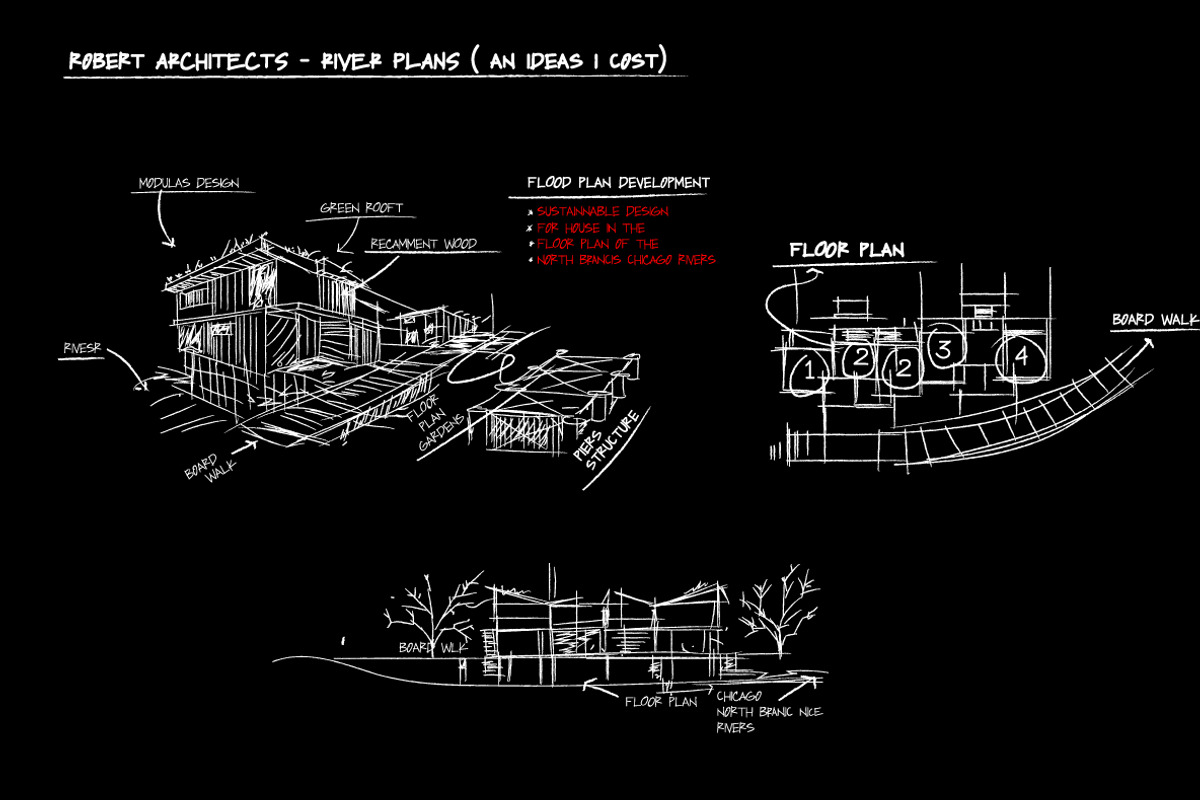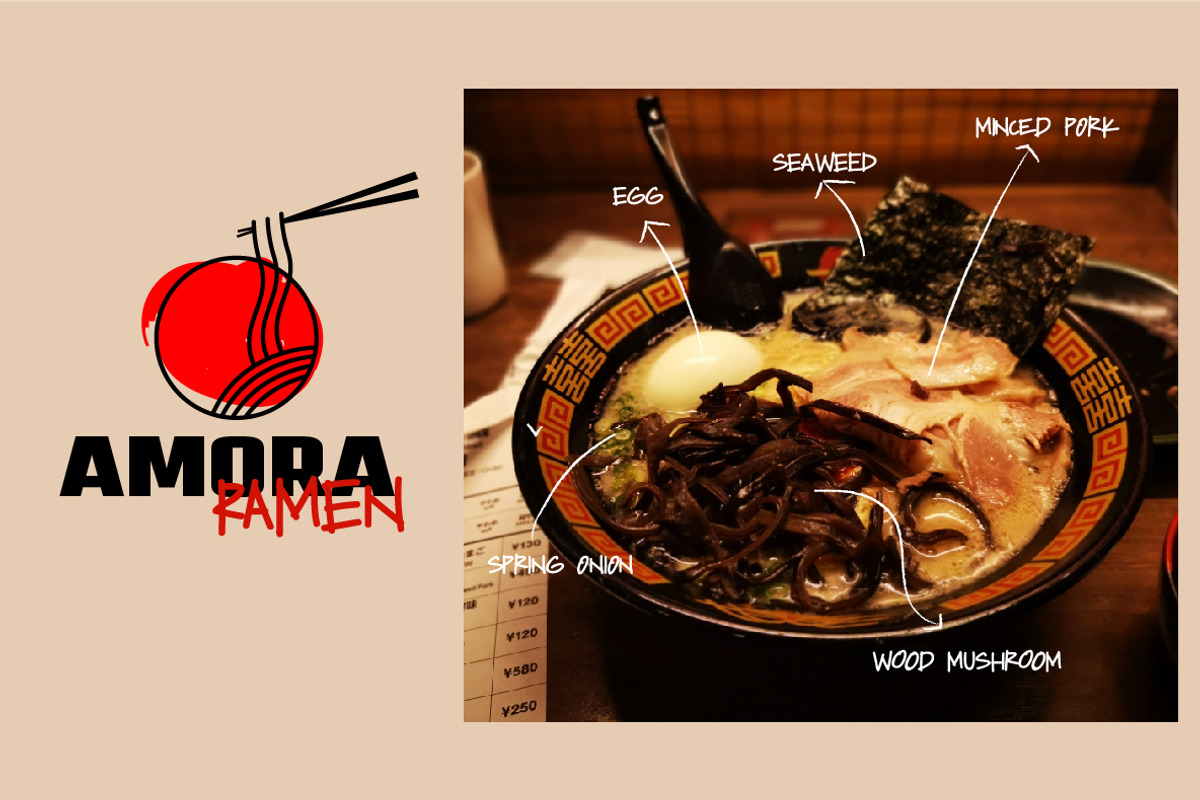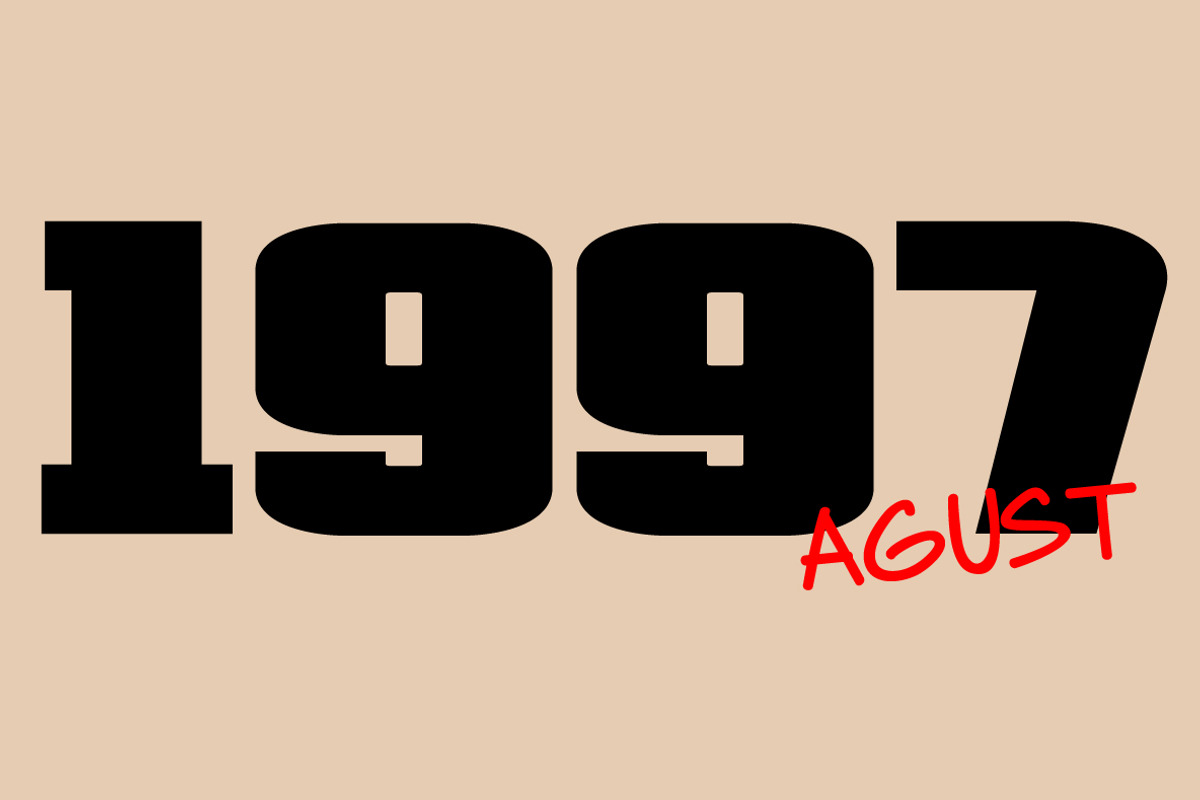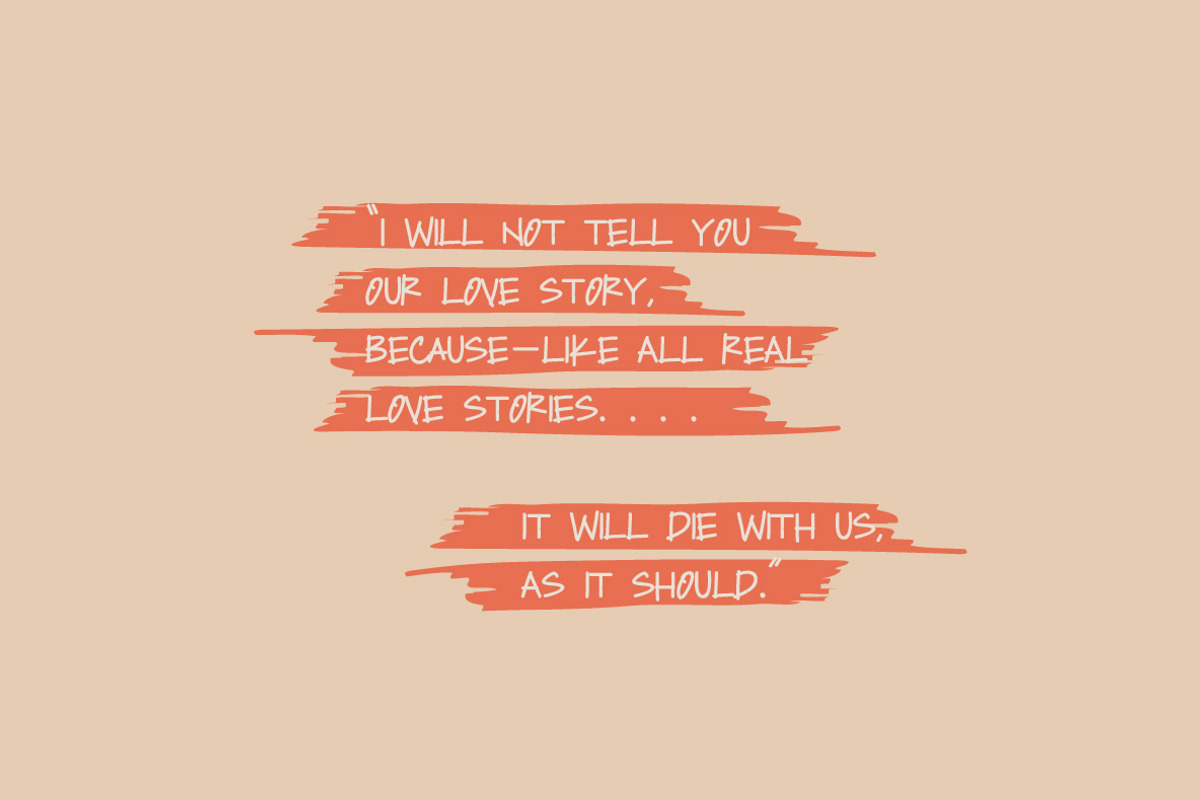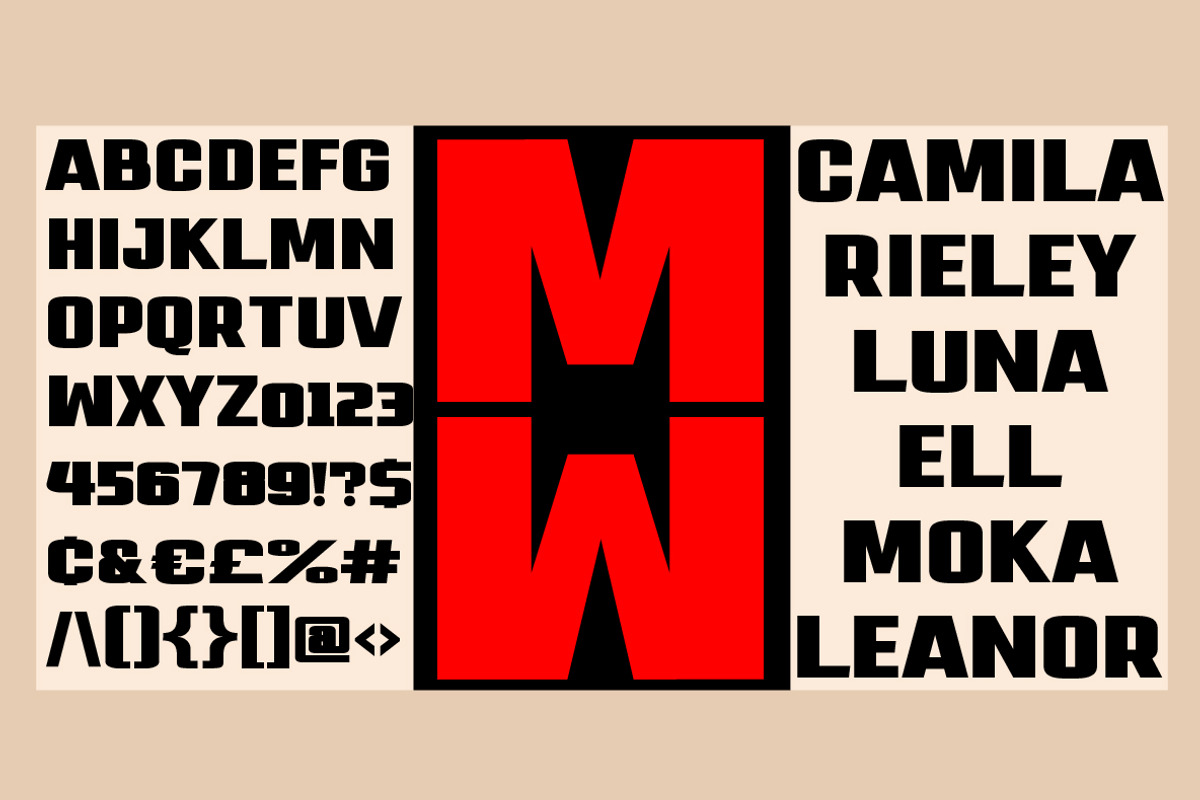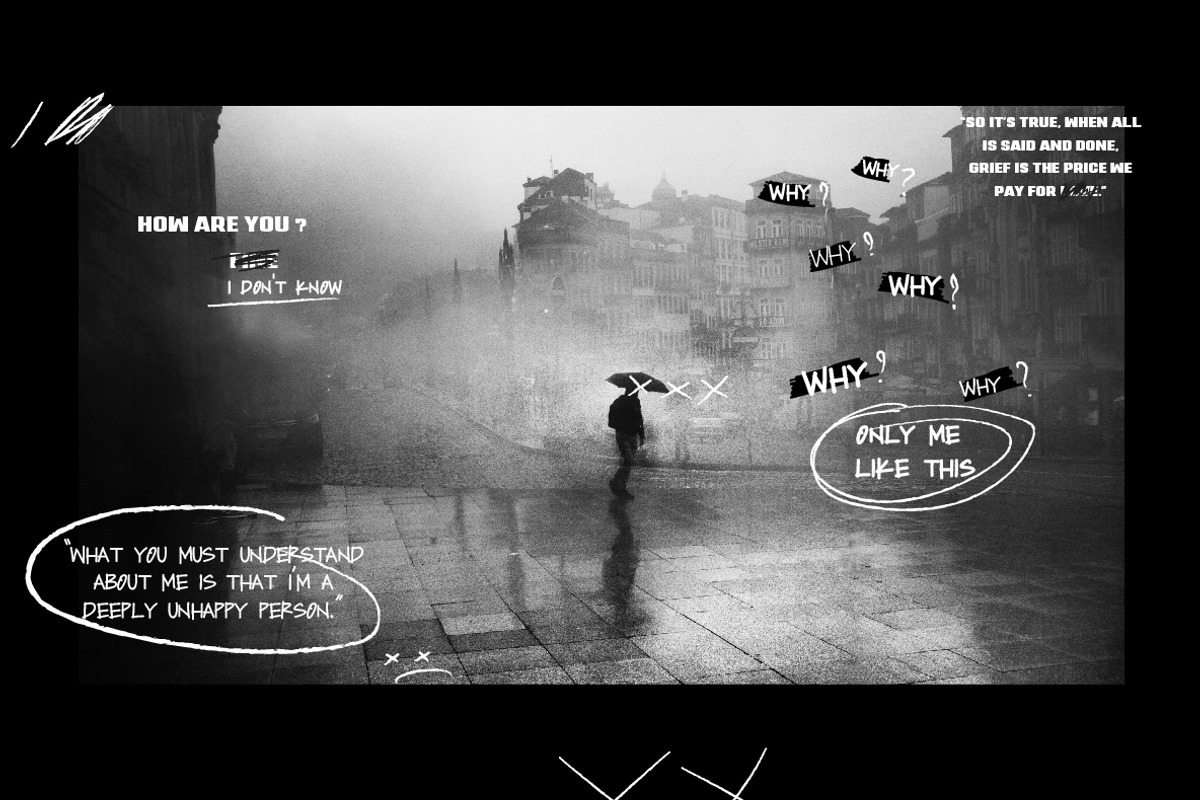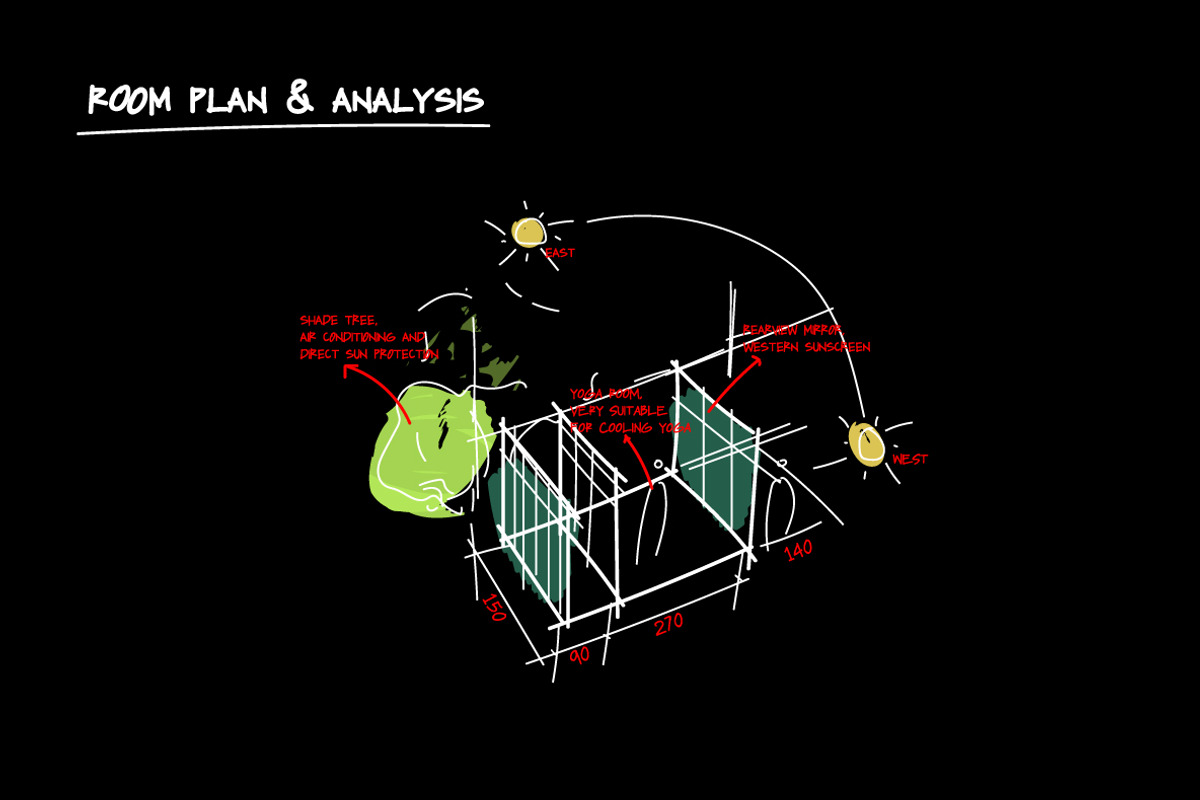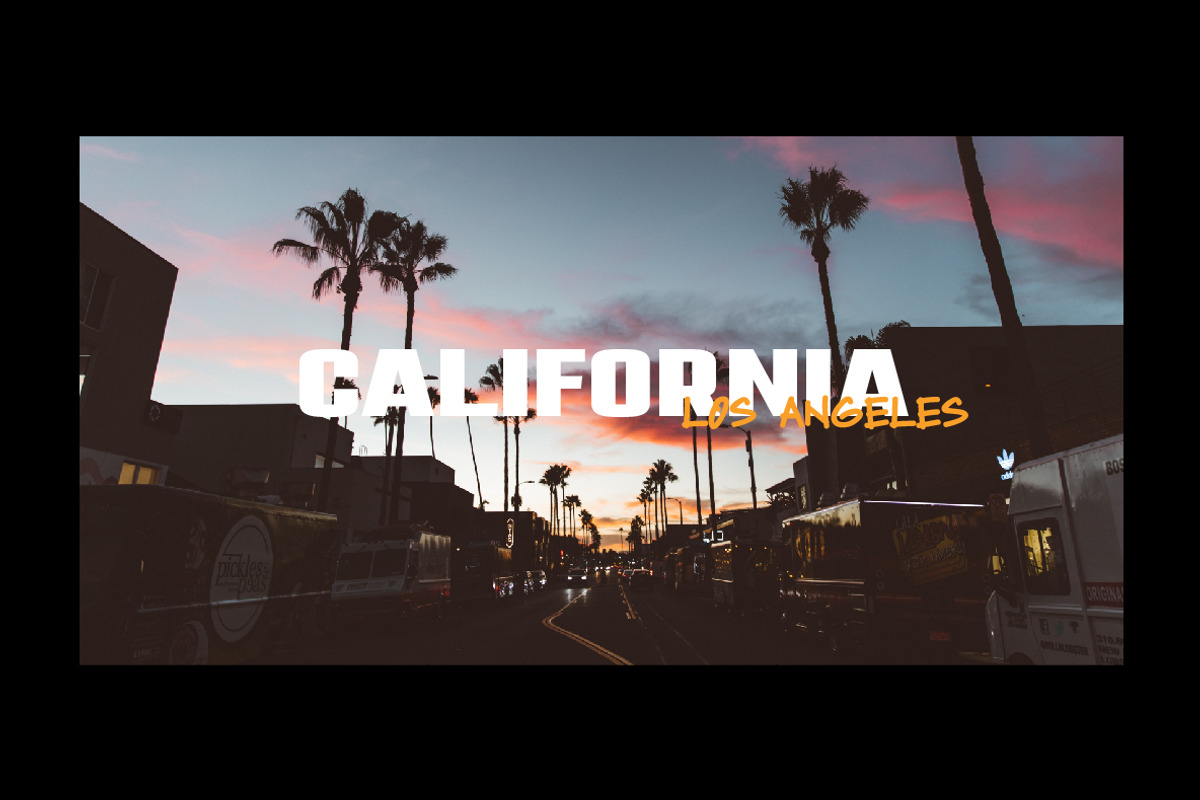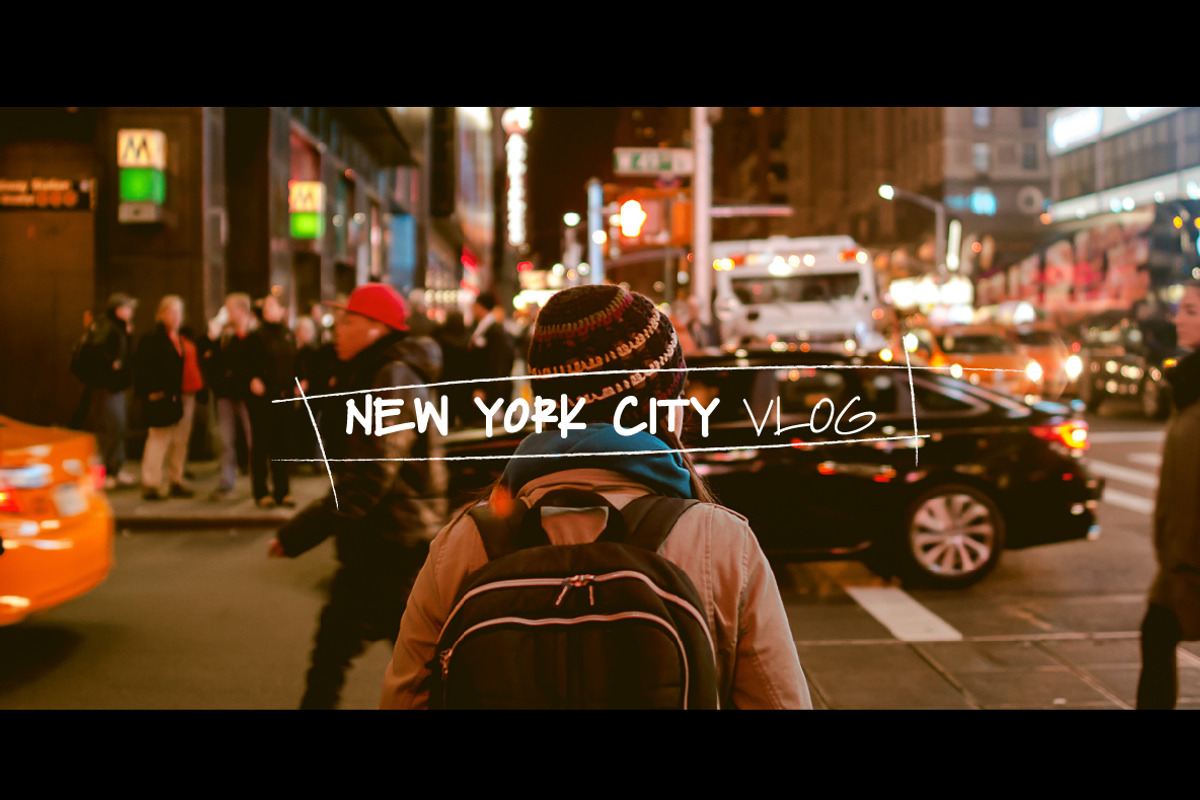
Molika - Font Duo
Say hello to "molika" :) molika has two types of fonts namely sans serif and handwritten, both have a firm character and also elegant-lettered font - perfect for casual type in greeting cards, illustrations, quotes, quaint branding, book covers, social media posts, packaging and so much more :)
The duo fonts consist of all uppercase letters and remain elegant for your project.